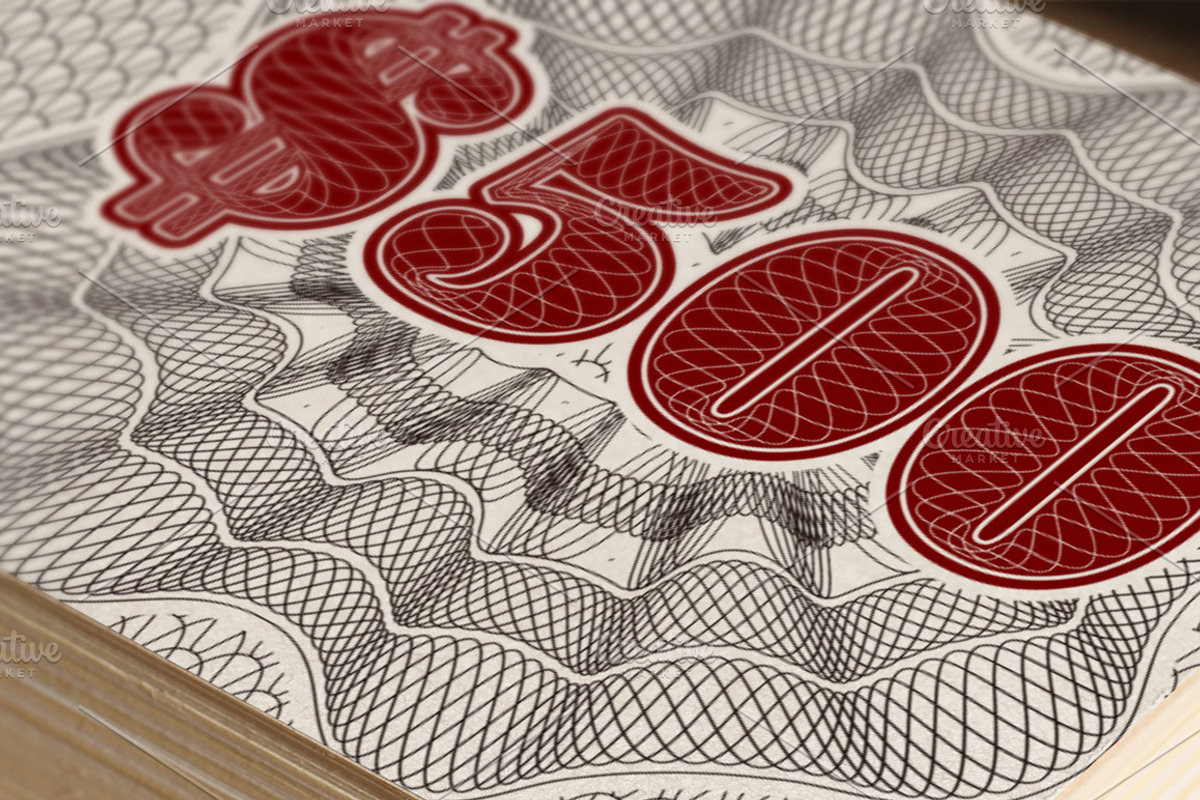
Guilloches TrueType Font
Guilloches TrueType Font by alphadesign is a font selected for branding, posters, packaging, typography.
Why Guilloches TrueType Font is worth a look
Guilloches TrueType Font by alphadesign fits naturally into Branding, posters, packaging, typography.